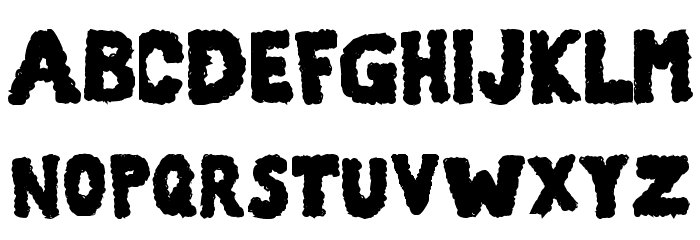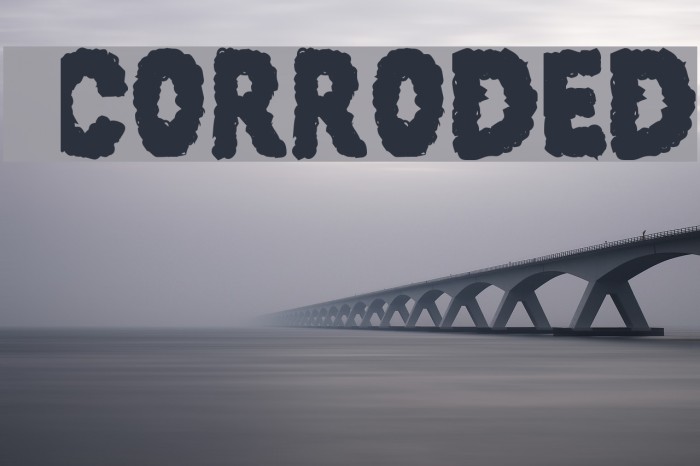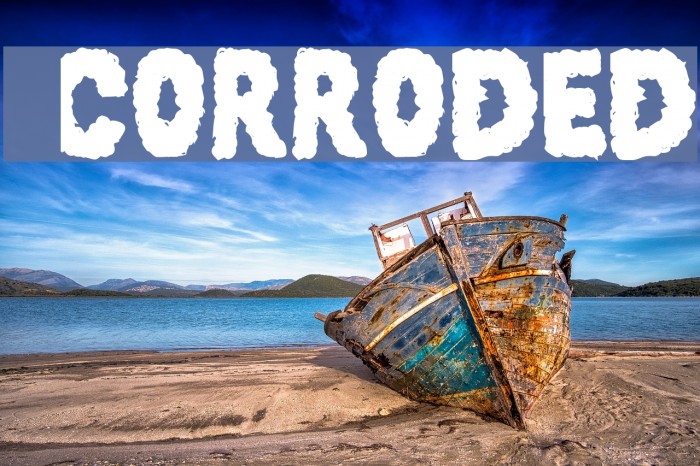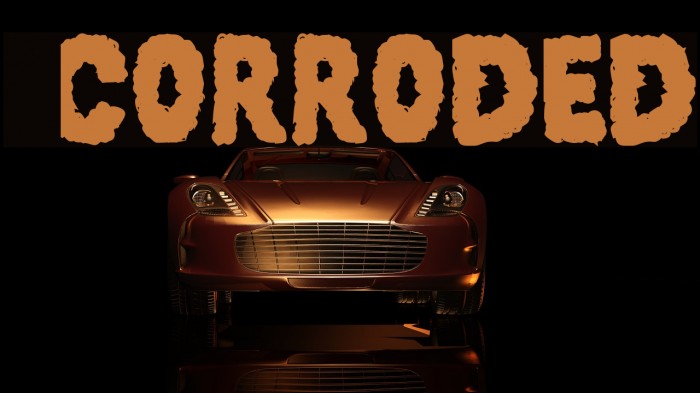
101! Corroded Font
This font features a rugged, distressed appearance, reminiscent of corroded metal or weathered surfaces. The characters are bold and heavily textured, giving them a unique, organic feel. The irregular edges and rough texture create a sense of decay and erosion, making it ideal for designs that require a gritty, industrial aesthetic. The uppercase and lowercase letters maintain consistent proportions, while the numbers and special characters follow the same corroded style, ensuring a cohesive look across all text elements.
A bold, distressed font with a corroded, textured appearance.
- Proposed Projects: Ideal for projects requiring an industrial or grunge aesthetic, such as album covers, posters, or branding for edgy, alternative brands.